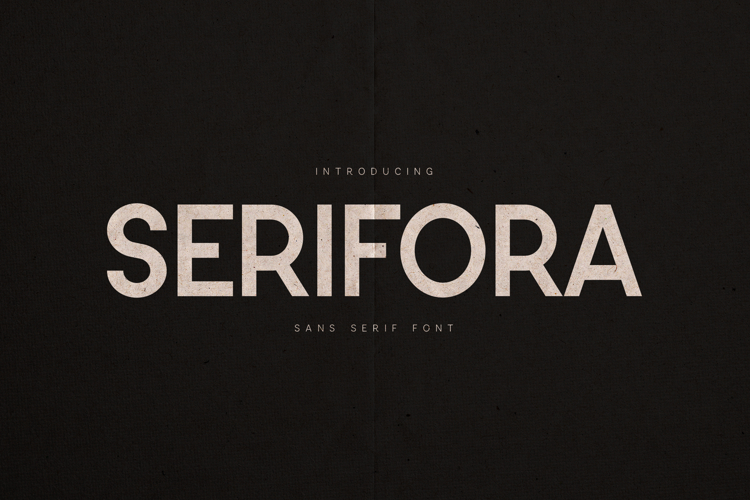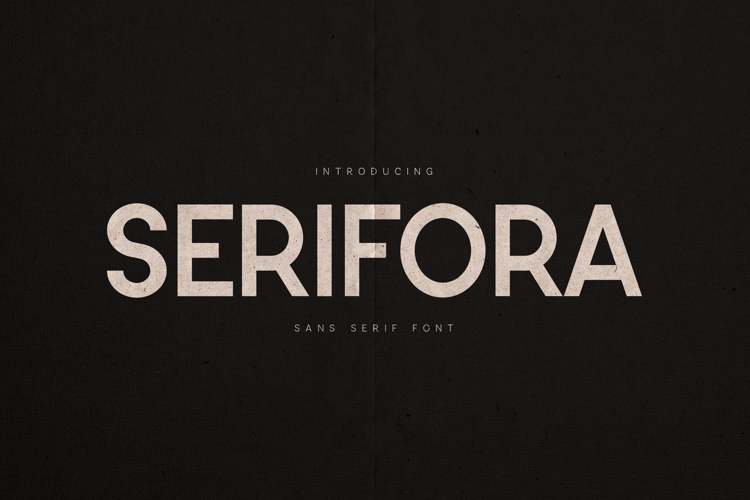
Serifora Modern Minimal Sans Serif
Serifora is a clean and contemporary sans serif typeface designed for bold communication and modern visual identity systems.
Built with strong geometric proportions and balanced letterforms, Serifora delivers excellent readability while maintaining a confident and minimal aesthetic. Its solid structure and neutral personality make it highly versatile for both digital and print applications.
The typeface is crafted to perform beautifully in headlines, branding systems, posters, packaging, and modern editorial layouts. Serifora’s straightforward design gives designers a reliable foundation for projects that require clarity, strength, and timeless simplicity.
• Clean geometric construction
• Modern minimalist style